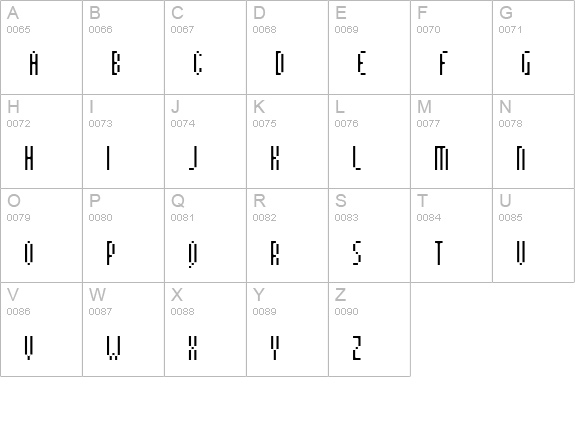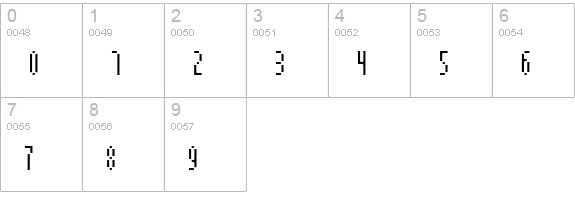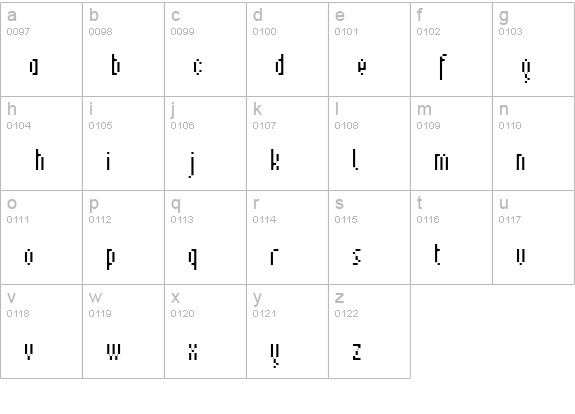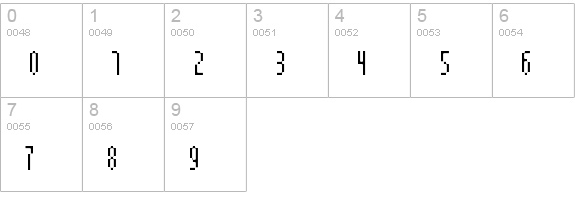
pinx Font Details
Introducing Pinx Font, a captivating typeface that effortlessly combines elegance and playfulness. With its unique and eye-catching design, Pinx Font is perfect for adding a touch of sophistication to your designs while still maintaining a playful and friendly vibe. One of the standout features of Pinx Font is its versatility. Whether you're designing a logo, creating social media graphics, or crafting eye-catching headlines, Pinx Font has the ability to adapt and enhance any project. Its clean lines and balanced proportions make it easily readable at any size, ensuring that your message will always be conveyed effectively. But what truly sets Pinx Font apart is its accessibility. This incredible font is available for free download exclusively at FontsMarket.com. Yes, you read that right - Pinx Font is freely available, allowing you to bring a touch of elegance and playfulness to your designs without breaking the bank. With Pinx Font, you can unleash your creativity and explore endless design possibilities. Whether you're a professional designer or a creative enthusiast, this font is sure to become a valuable addition to your typography arsenal. So why wait? Download Pinx Font today and experience the perfect balance of elegance and playfulness in your designs. Don't miss out on this incredible opportunity to enhance your creations with a font that is both captivating and freely available at FontsMarket.com.